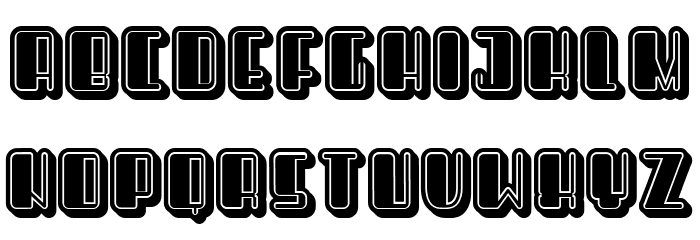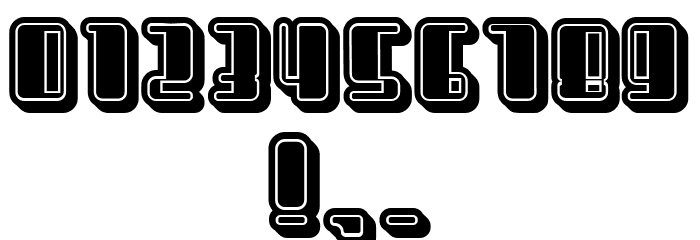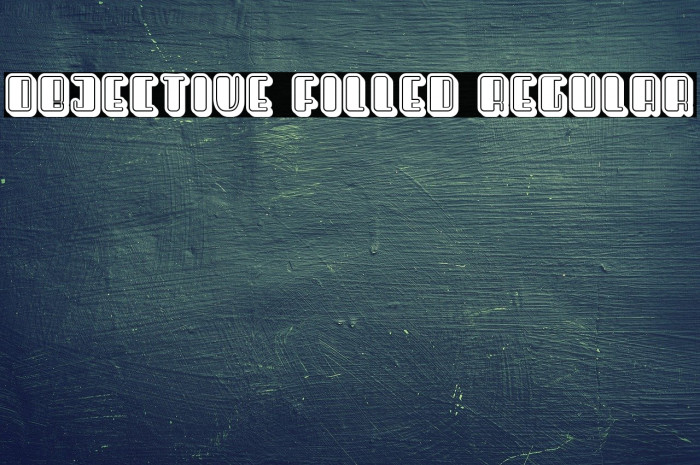
Objective Filled Regular Font
This font features a bold, geometric design with a filled interior and a distinct outline, creating a striking visual effect. The characters are uniformly structured with a modern, futuristic appeal. The uppercase and lowercase letters maintain a consistent style, with rounded edges and a blocky appearance. Numbers and special characters follow the same design principles, ensuring a cohesive look across all elements. The font's boldness and unique style make it ideal for attention-grabbing designs.
A bold, geometric font with a filled interior and outlined style.
- Proposed Projects: Ideal for posters, logos, headlines, and any design requiring a modern, impactful typeface.